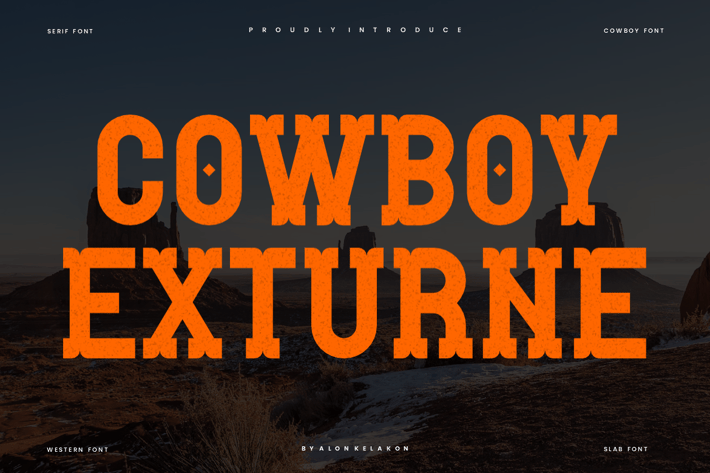
Cowboy Exturne - Western Font
Cowboy Exturne Font is unique . Ready to use for your design like labeling, movie sceen, poster, movie title, gigs, album covers, logos, and much more.